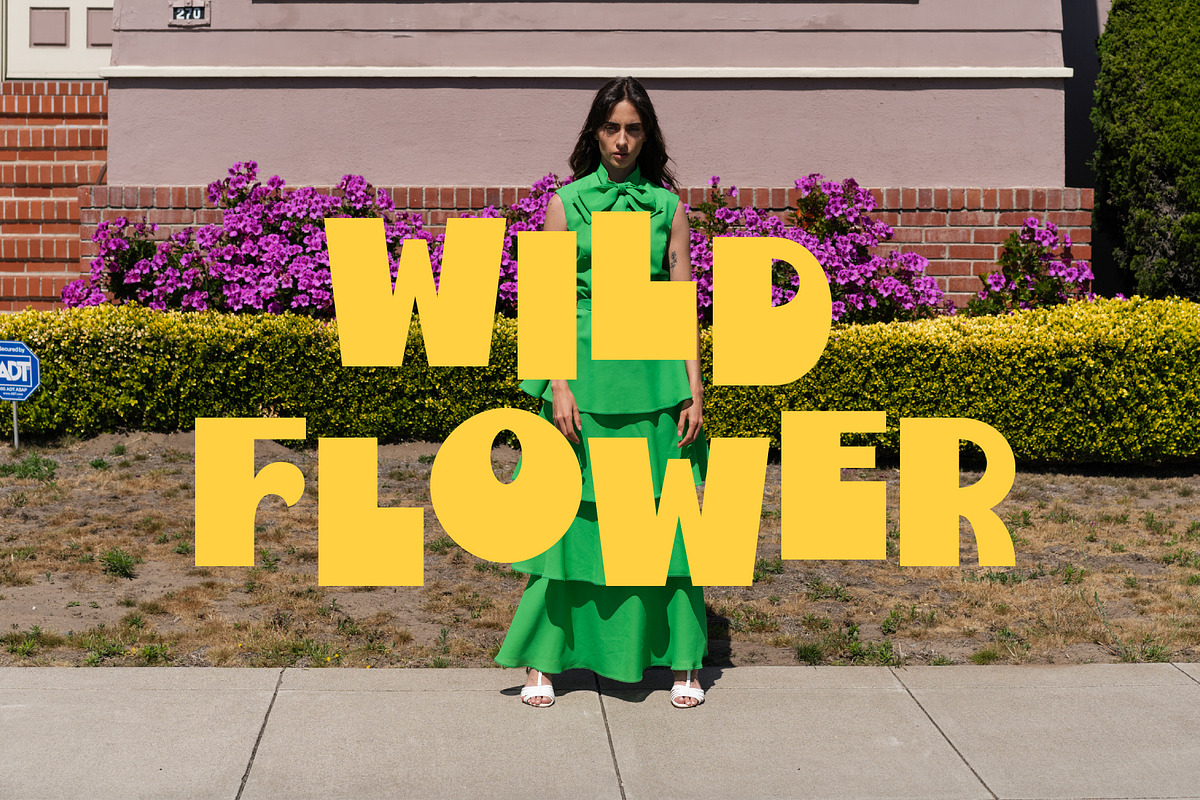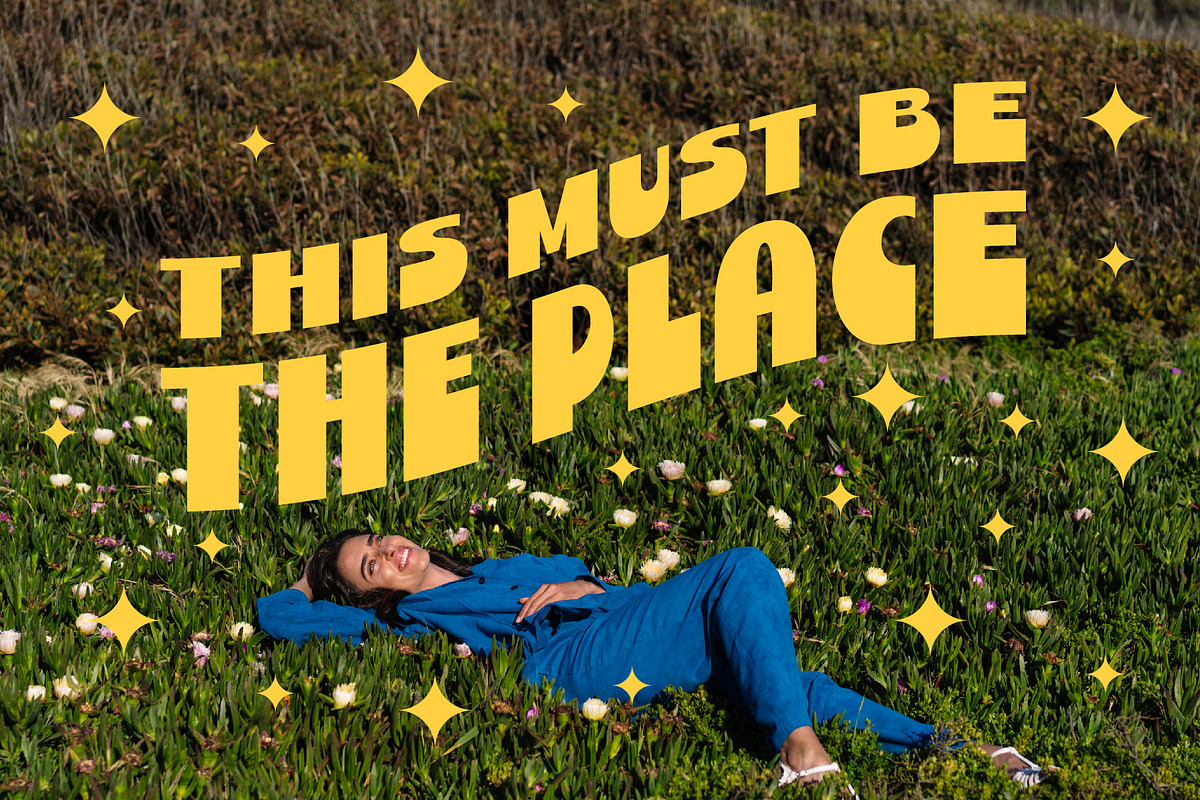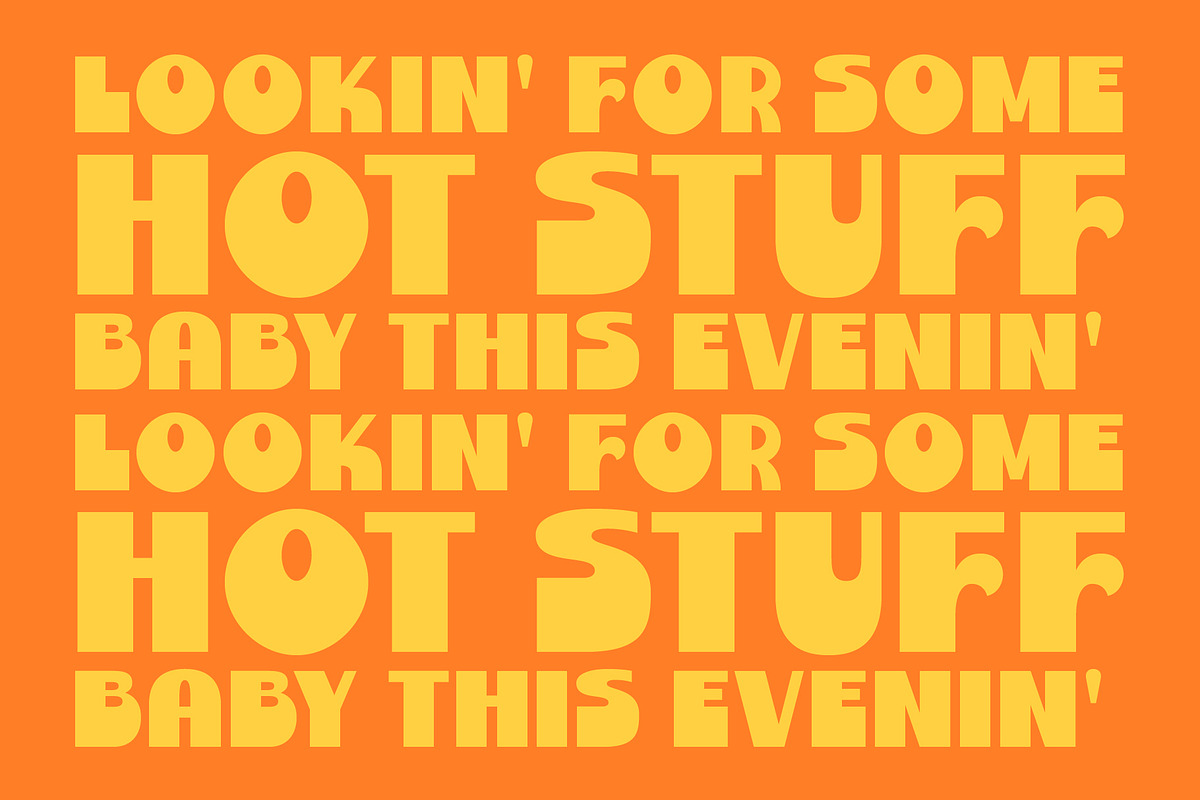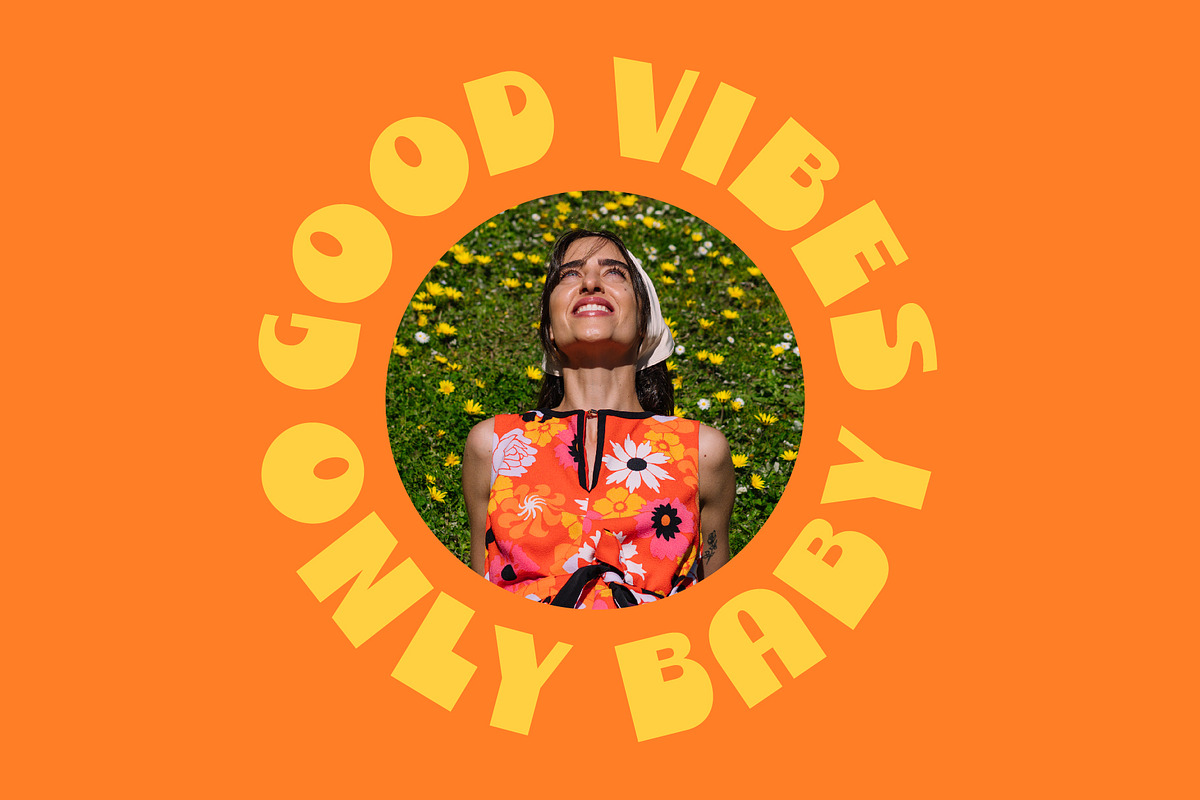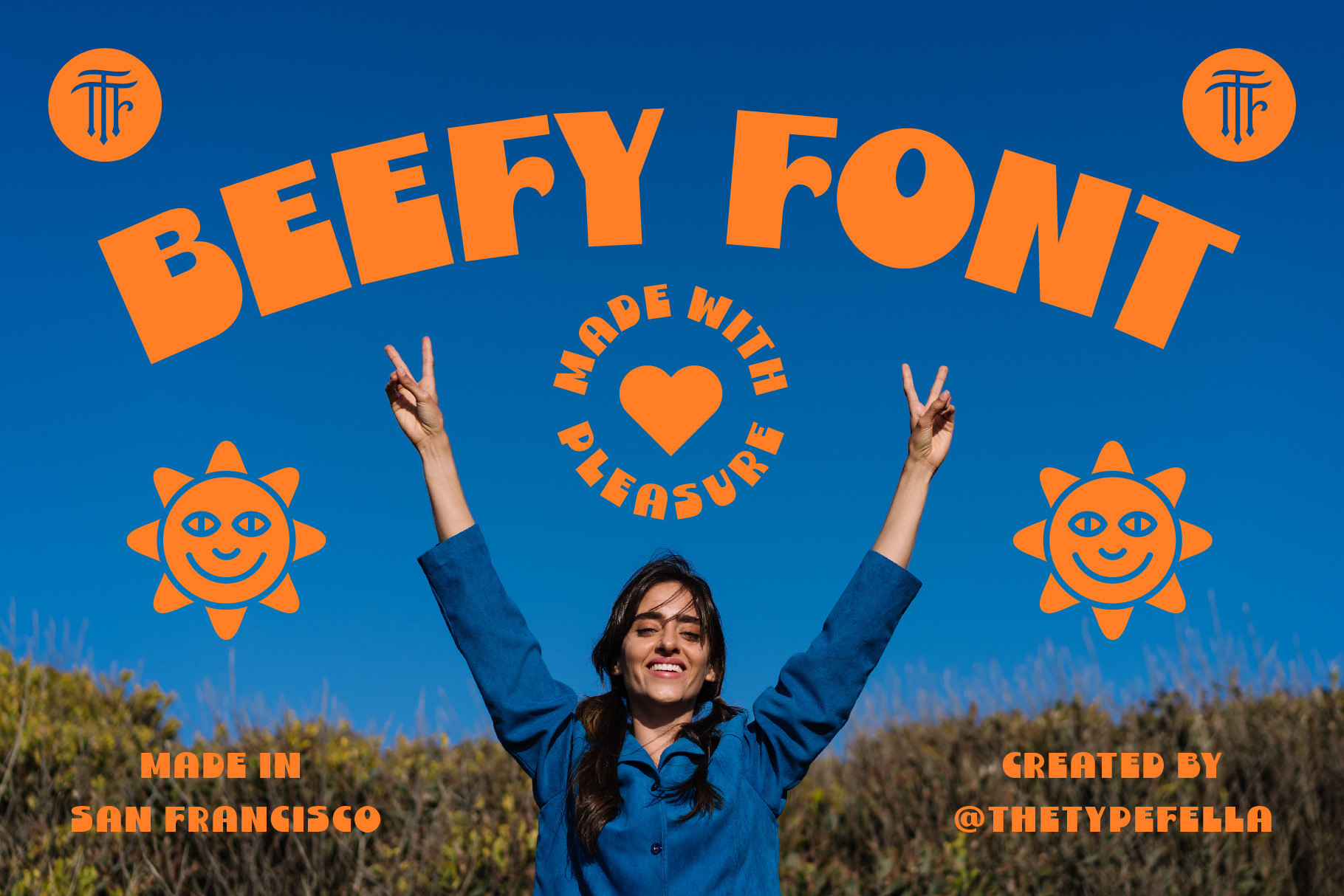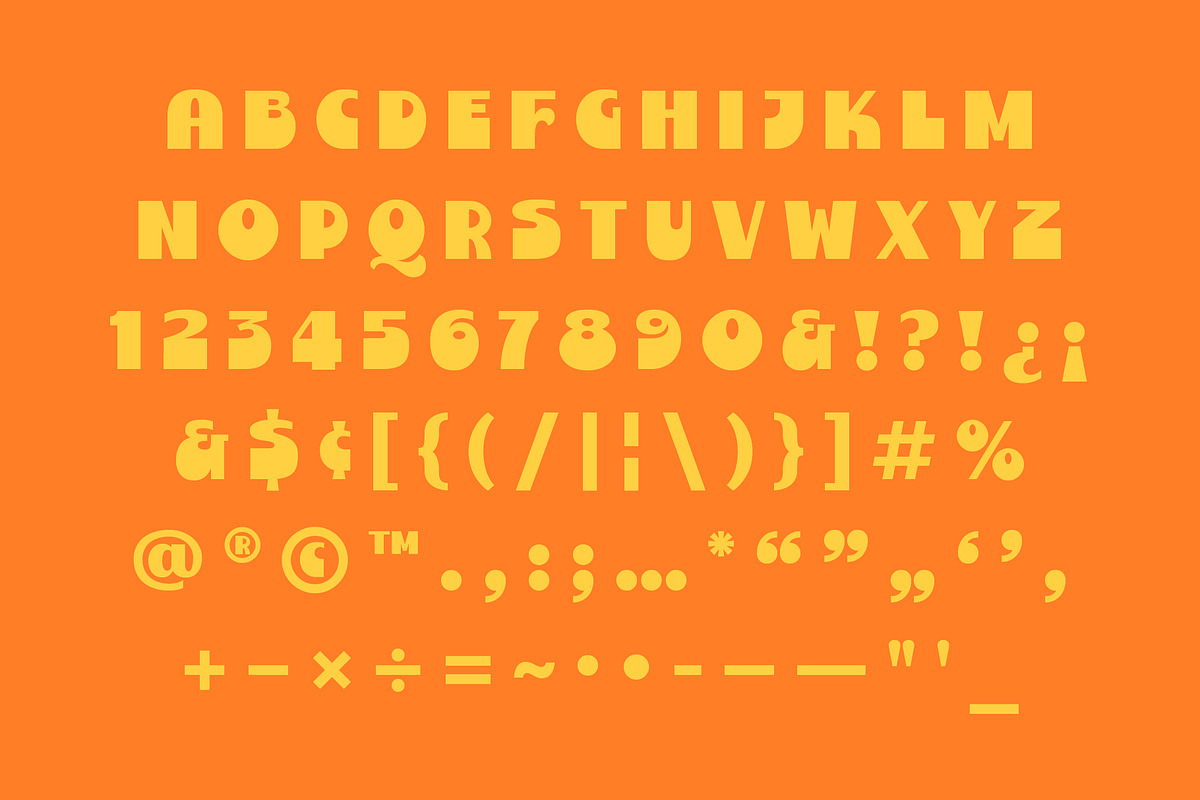
Beefy - A Funky 70s Font
Introducing Beefy, my first ever designed font. A groovy display crafted and influenced by funk, the seventies and them good ol’ sunny days. Awesome for music posters, album graphics, book titles, and more. Kick back and relax with Beefy!